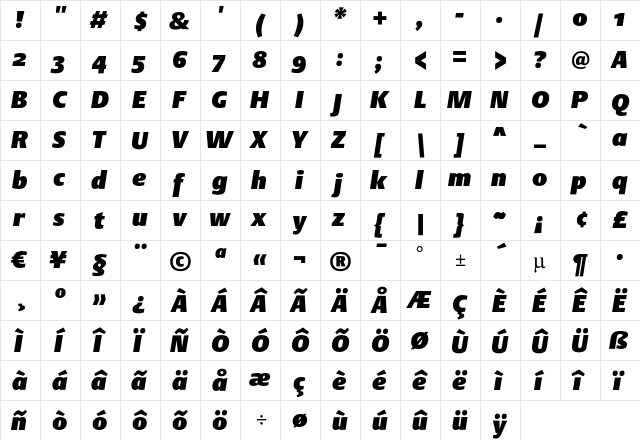
DTL Argo ST Ultra Heavy Italic
Design Context for DTL Argo Typeface
DTL Argo takes a measured approach to typography — its balanced proportions and neutral character make it a reliable workhorse for both digital and print work. The slanted form adds forward momentum and visual energy.
Pro Tip: Use DTL Argo for emphasis, pull quotes, and subheadings where its slanted energy can add rhythm to the layout.